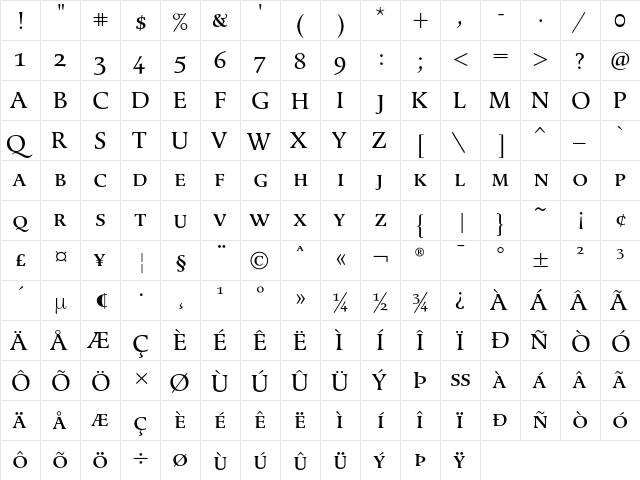
Berndal LT Std SC Regular Font Preview
Berndal LT Std SC Regular
Berndal LT Std SC Regular Font Details
| Foundry | Linotype Library GmbH |
| Designer | Bo Berndal |
Design Context for Berndal LT Std SC Typeface
Berndal LT Std SC is a composed and adaptable typeface that performs quietly and consistently across a wide range of design contexts. Its slender proportions lend an understated elegance to any composition.
Pro Tip: Use Berndal LT Std SC in both headline and body roles to test its range before committing to a single application.